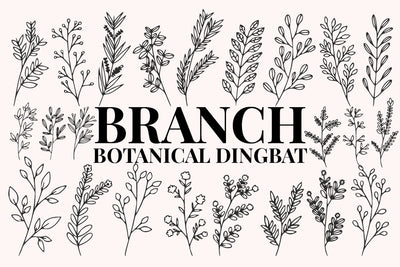
Branch - Botanical Dingbat Font
Branch is a dingbat font with botanical character in a sweet ouline style. This font can be used for decoration, cricut, sticker, ornament, and many others